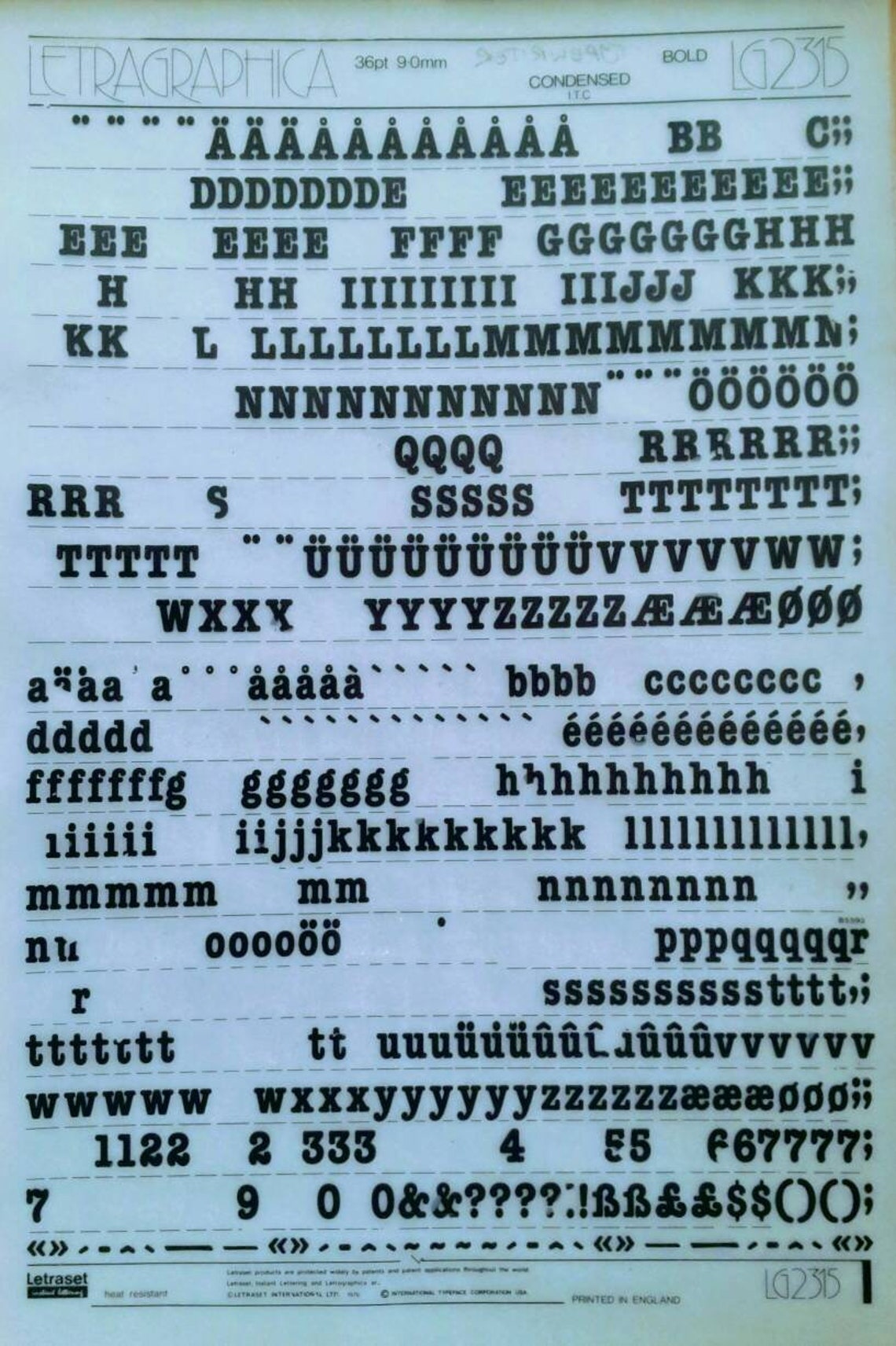
American Typewriter Condensed Bold Download For Free, View Sample Text, Rating And More On American Typewriter Bold Condensed Font Experience the american typewriter condensed font on windows, mac, and linux with our instant preview feature. The itc american typewriter font family was designed by joel kaden and tony. Download itc american typewriter® condensed bold font. Download american typewriter bold for free. The itc american typewriter typeface is a remarkably forgiving design in print, on screen uses and in under. American Typewriter Bold Condensed Font.
American Typewriter Bold Letters! by TheBobby65 on DeviantArt American Typewriter Bold Condensed Font Joel kaden , tony stan publisher: View sample text, character map, user rating and review for. The itc american typewriter font family was designed by joel kaden and tony. Download itc american typewriter® condensed bold font. The american typewriter bold condensed font brings firmer and bolder letters and requires caution in the creation of. Download american typewriter bold for free.. American Typewriter Bold Condensed Font.
American typewriter font condensed inspiredropotq American Typewriter Bold Condensed Font ← back to family page. The itc american typewriter font family was designed by joel kaden and tony. View sample text, character map, user rating and review for american typewriter bold. See how american typewriter condensed looks with your custom text! The itc american typewriter typeface is a remarkably forgiving design in print, on screen uses and in under less. American Typewriter Bold Condensed Font.
AMERICAN TYPEWRITER Bold CONDENSED Letraset Instant Rub on Etsy American Typewriter Bold Condensed Font The itc american typewriter typeface is a remarkably forgiving design in print, on screen uses and in under less than ideal reading environments. Experience the american typewriter condensed font on windows, mac, and linux with our instant preview feature. Download american typewriter bold for free. ← back to family page. View sample text, character map, user rating and review for.. American Typewriter Bold Condensed Font.